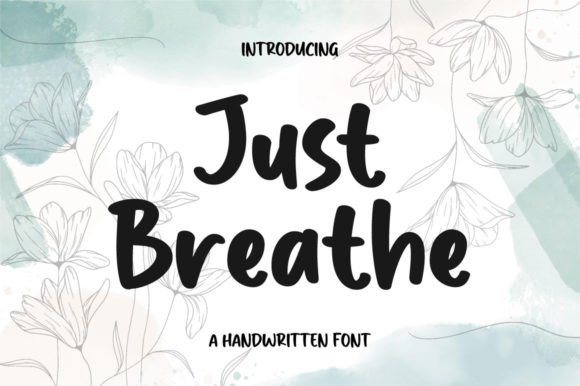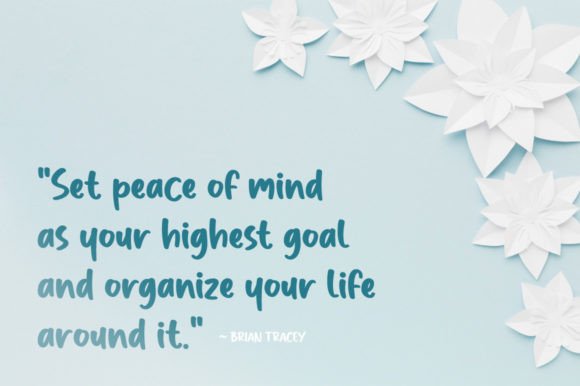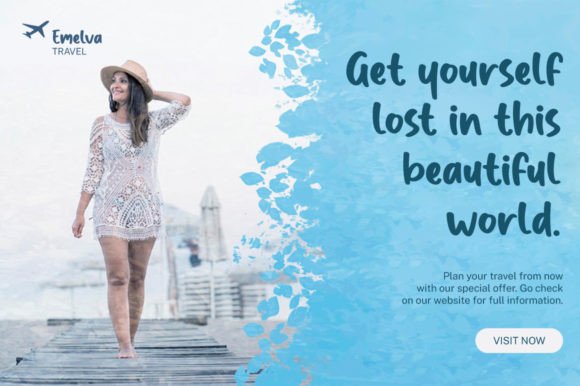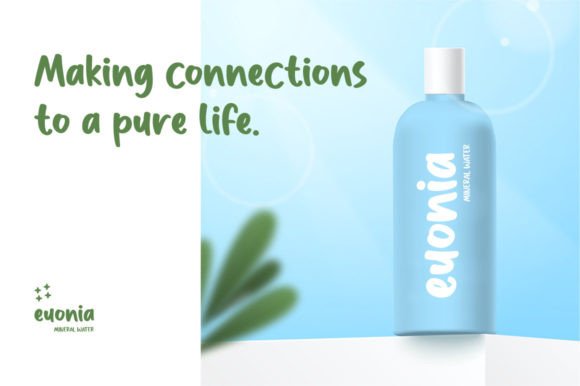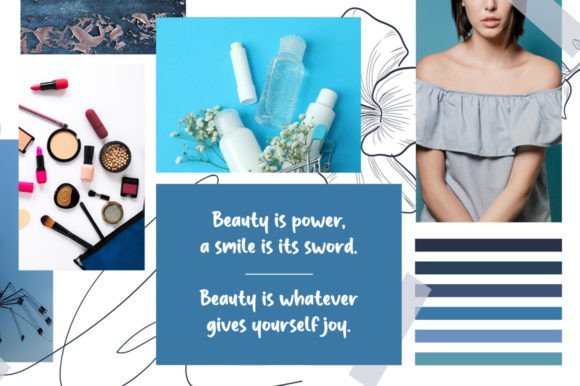
About Just Breathe Font
Just Breathe is a delicate and simple-lettered handwritten font, perfect for all the chalkboard quotes and teaching materials you wish to create! Its authentic look will add a personal and realistic feel to your designs.